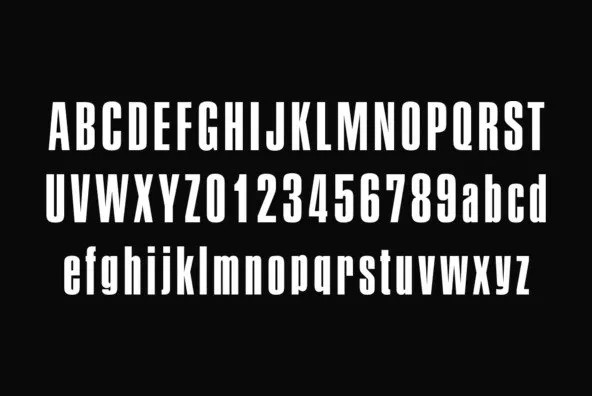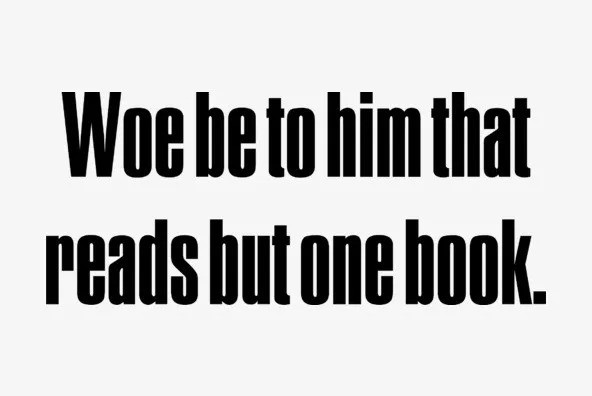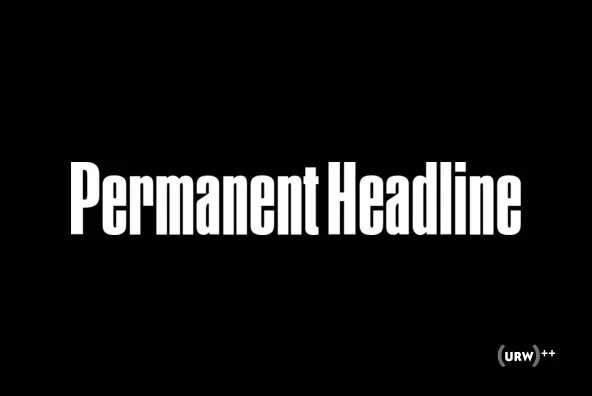
Permanent Headline Font
Permanent Headline Font, Perfectly fit for branding, logo, wedding things, greeting cards, fashion, lookbook, marketing promotion, anytime you want to look fancy elegant but still casual.